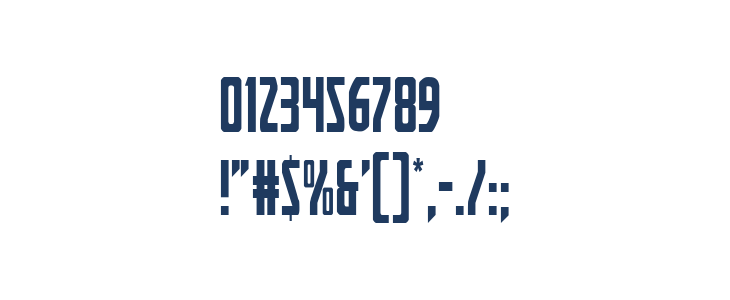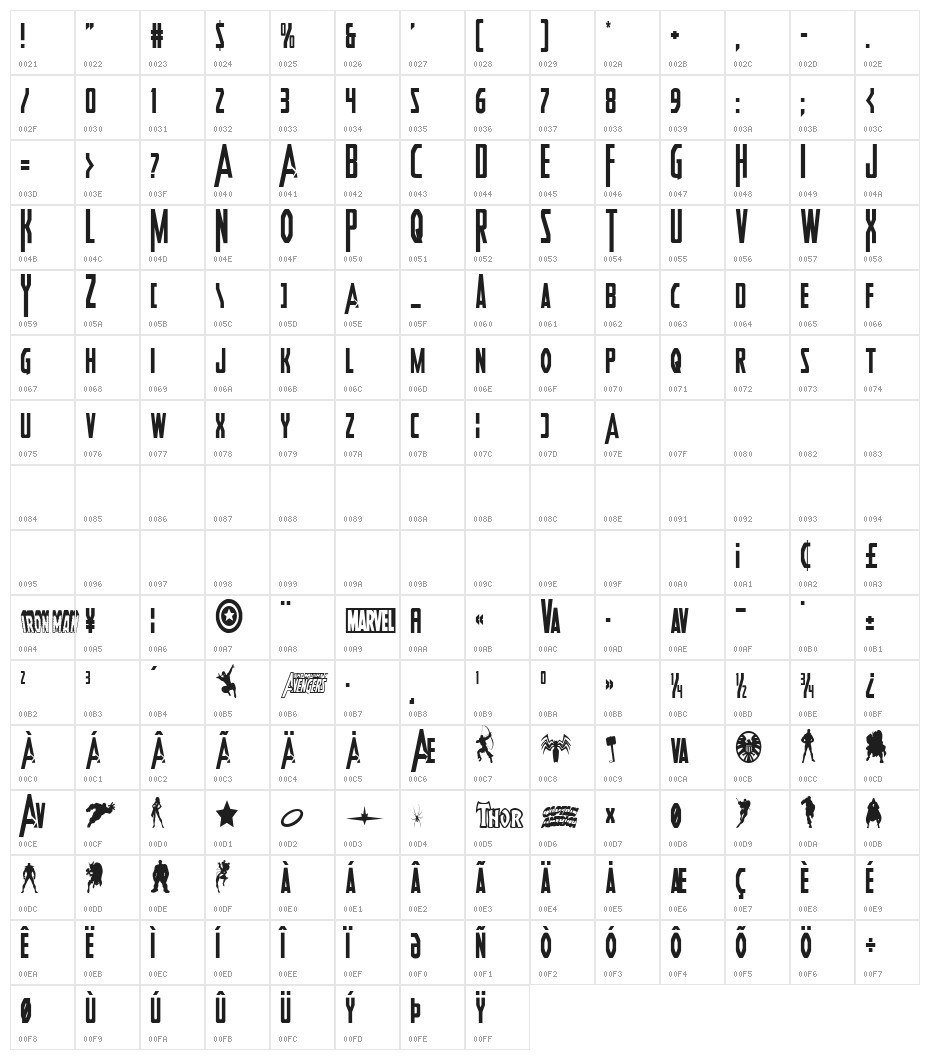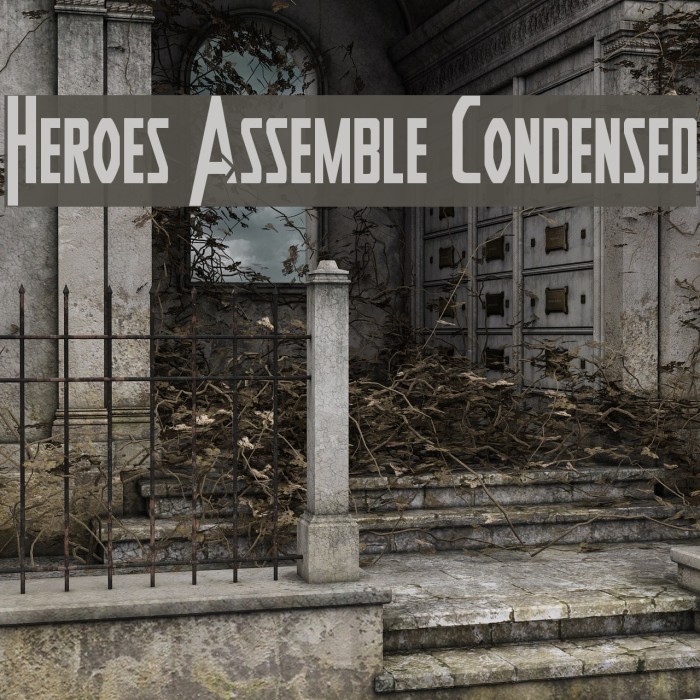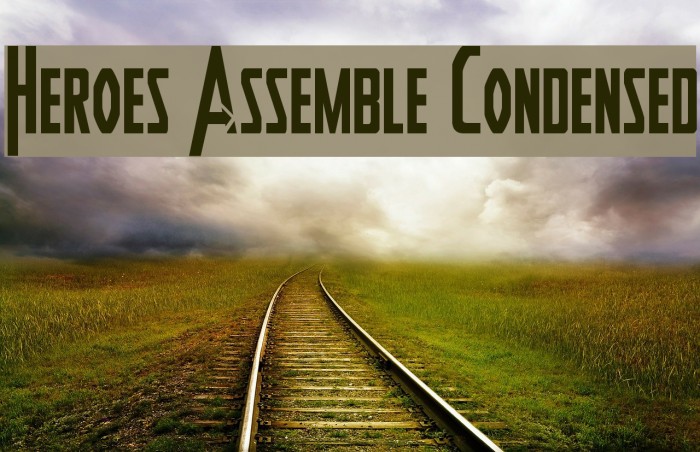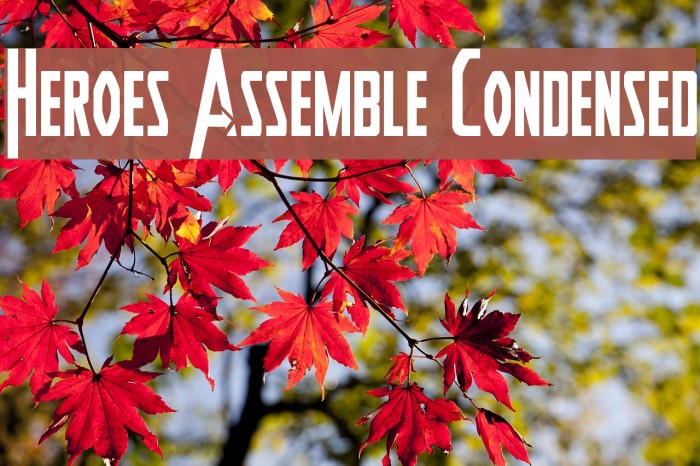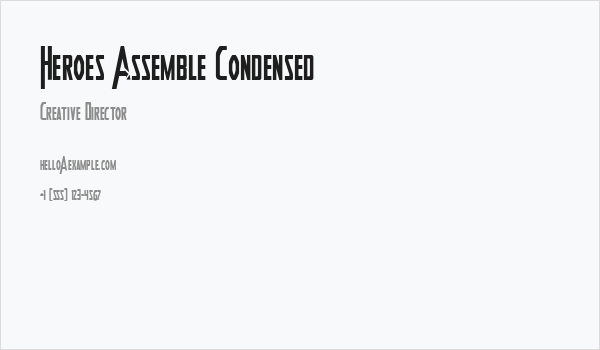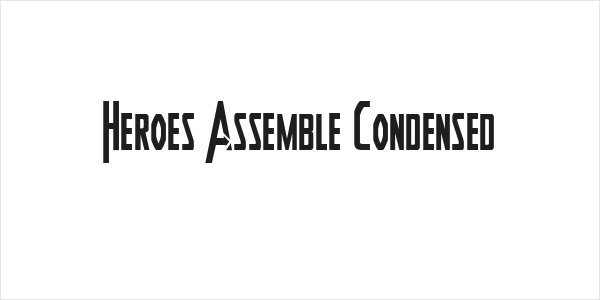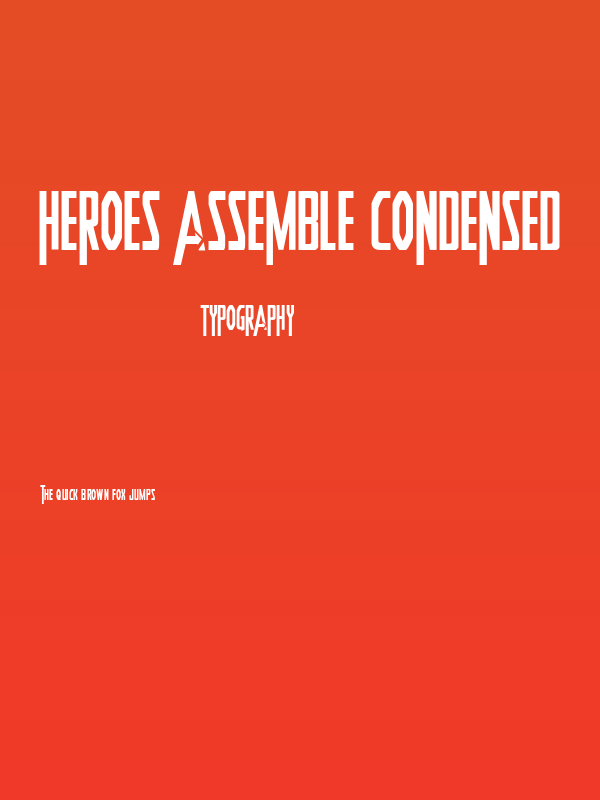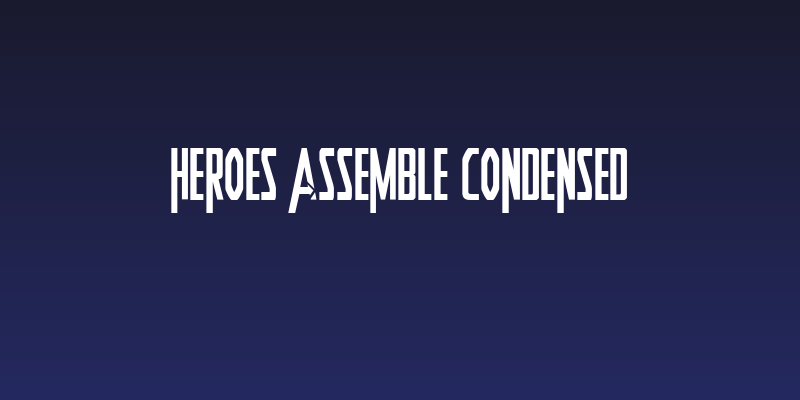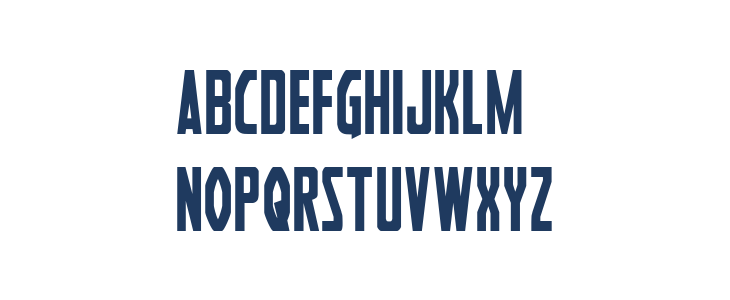
Heroes Assemble Condensed Font
Heroes Assemble Condensed Description
This font features a bold and condensed style with sharp, angular edges that give it a dynamic and powerful appearance. The uppercase letters are particularly striking, with a strong geometric influence that makes them stand out. The numbers and special characters maintain the same boldness and angularity, ensuring consistency throughout the typeface. The overall design is reminiscent of superhero themes, making it ideal for projects that require a sense of strength and action. The condensed width allows for efficient use of space, making it suitable for headlines and titles where impact is essential.